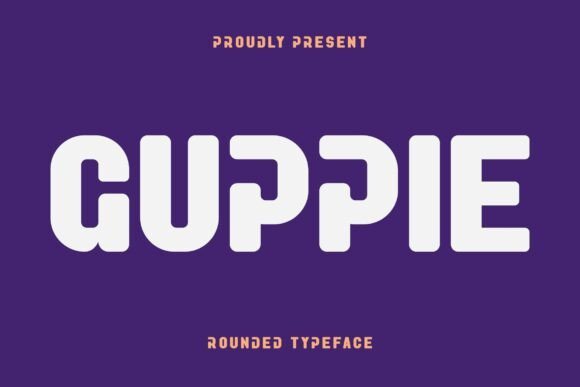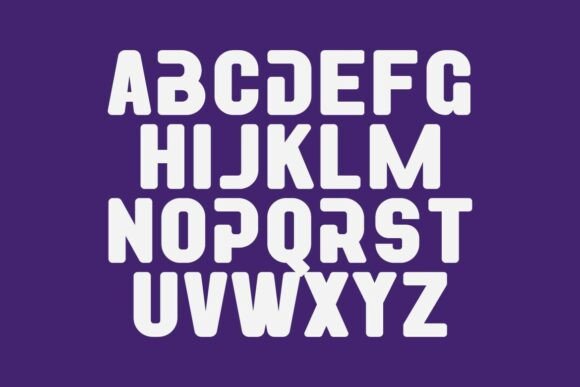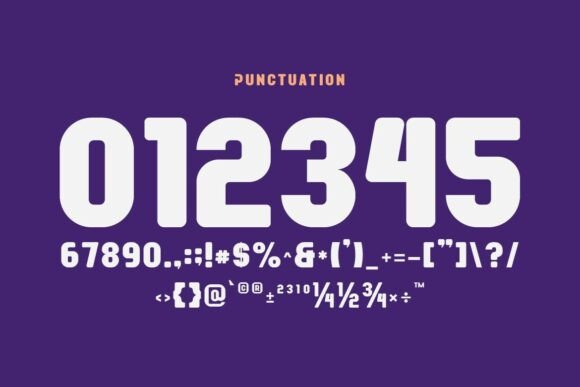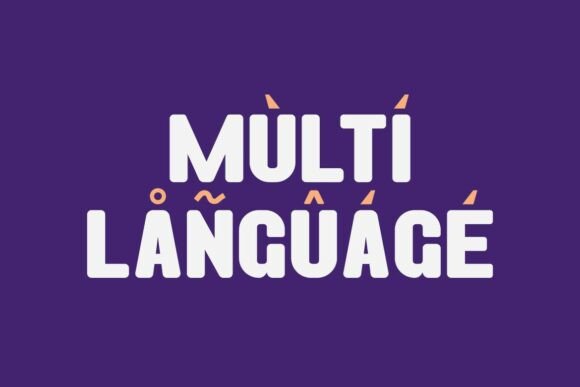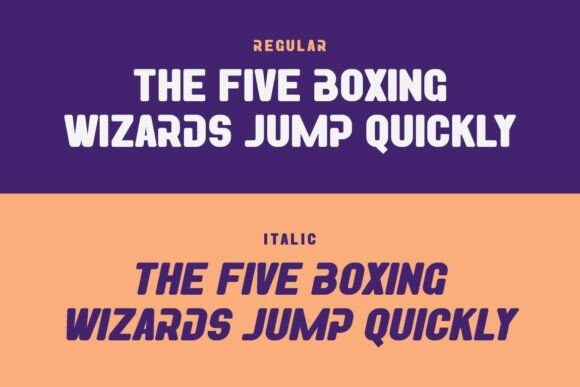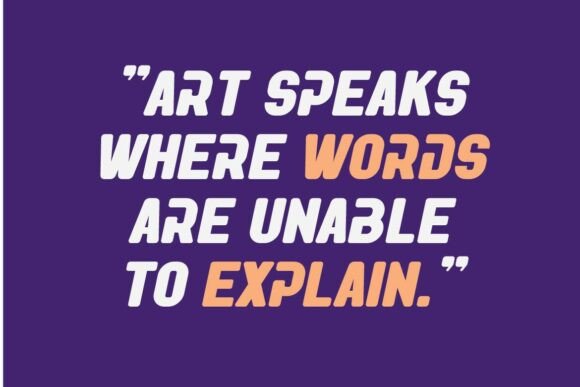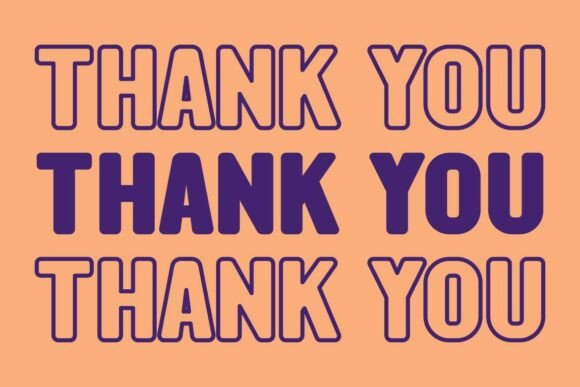
The Perfect Catch: Introducing the Guppie Font
Have you ever been browsing through a children’s book or a social media feed and been immediately drawn to the friendly, approachable feel of the typography? That’s the magic of the right font choice. For designers, finding the perfect font can be a game-changer – and that’s exactly what the Guppie Font aims to deliver.
With its soft curves, balanced proportions, and clean structure, the Guppie Font is designed to bring a touch of playfulness and modernity to your designs. Whether you’re working on branding, packaging, or UI/UX projects, this font is the perfect catch for adding an approachable and contemporary feel to your typography. As a valuable addition to any designer’s toolkit, the Guppie Font is sure to make a splash in your next project.
Guppie Font Key Features
- Font Family: Guppie Font is a sans-serif font family that includes multiple weights and styles.
- Unique Characteristics: Guppie Font features a distinctive, modern design with clean lines, rounded corners, and a friendly feel, making it suitable for digital and print applications.
- Language Support: The font supports a wide range of languages, including Latin, Cyrillic, and Greek scripts, with over 200 characters in each font style.
Guppie Font Review
I recently had the chance to work with the Guppie Font, and here’s my honest take on it. ✨ One thing that really stands out is its unique and playful vibe. The font is perfect for projects that need a bit of whimsy and personality. I’ve used it for a few branding projects, and it’s been a hit with clients who are looking for something that really stands out.
- Playful and whimsical feel that’s perfect for creative projects
- Highly customizable, with a wide range of weights and styles
- Works well in both digital and print formats
However, ⚠️ there are a few limitations to be aware of. The font can be a bit challenging to read at smaller sizes, and it’s not ideal for projects that require a lot of body text. Additionally, some of the weights can feel a bit inconsistent, which can make it difficult to achieve a cohesive look.
Overall, I think the Guppie Font is a great choice for projects that need a bit of flair and personality. While it may not be the best choice for every project, it’s definitely worth considering for anything that requires a playful and creative vibe.
Tips for Getting the Most Out of Guppie Font
To get the most out of Guppie Font, try the following:
- Experiment with different font sizes and styles to find the perfect look.
- Use Guppie Font in combination with other fonts for a unique and eye-catching design.
- Try using Guppie Font in bold or italic styles to add emphasis.
Guppie Font is perfect for:
- Creating eye-catching headlines and titles.
- Design
Alternatives to Guppie Font for Designers
Open Sans is a modern sans-serif font designed by Steve Matteson. It’s highly legible and suitable for a wide range of applications, including body text and headlines. Open Sans is a great alternative to Guppie Font for designers who want a clean and minimalist look.
Comparison to Guppie Font: Open Sans is more formal and professional than Guppie Font, making it suitable for corporate and business applications. However, it lacks the playful and quirky feel of Guppie Font.
Lato is a sans-serif font designed by Łukasz Dziedzic. It’s highly versatile and suitable for both body text and headlines. Lato is a great alternative to Guppie Font for designers who want a font that’s both modern and elegant.
Comparison to Guppie Font: Lato is more elegant and sophisticated than Guppie Font, making it suitable for luxury and high-end applications. However, it lacks the edgy and experimental feel of Guppie Font.
Montserat is a sans-serif font designed by Julieta Ulanovsky. It’s inspired by the urban environment of Buenos Aires and is highly suitable for body text and headlines. Montserrat is a great alternative to Guppie Font for designers who want a font that’s both modern and gritty.
Q: Can I customize Guppie Font to fit my specific design needs?
Guppie Font is a variable font, which means it can be customized to fit your specific design needs. You can adjust the font’s weight, width, and other properties to create a unique look and feel. However, please note that customization may require advanced font editing skills and software.